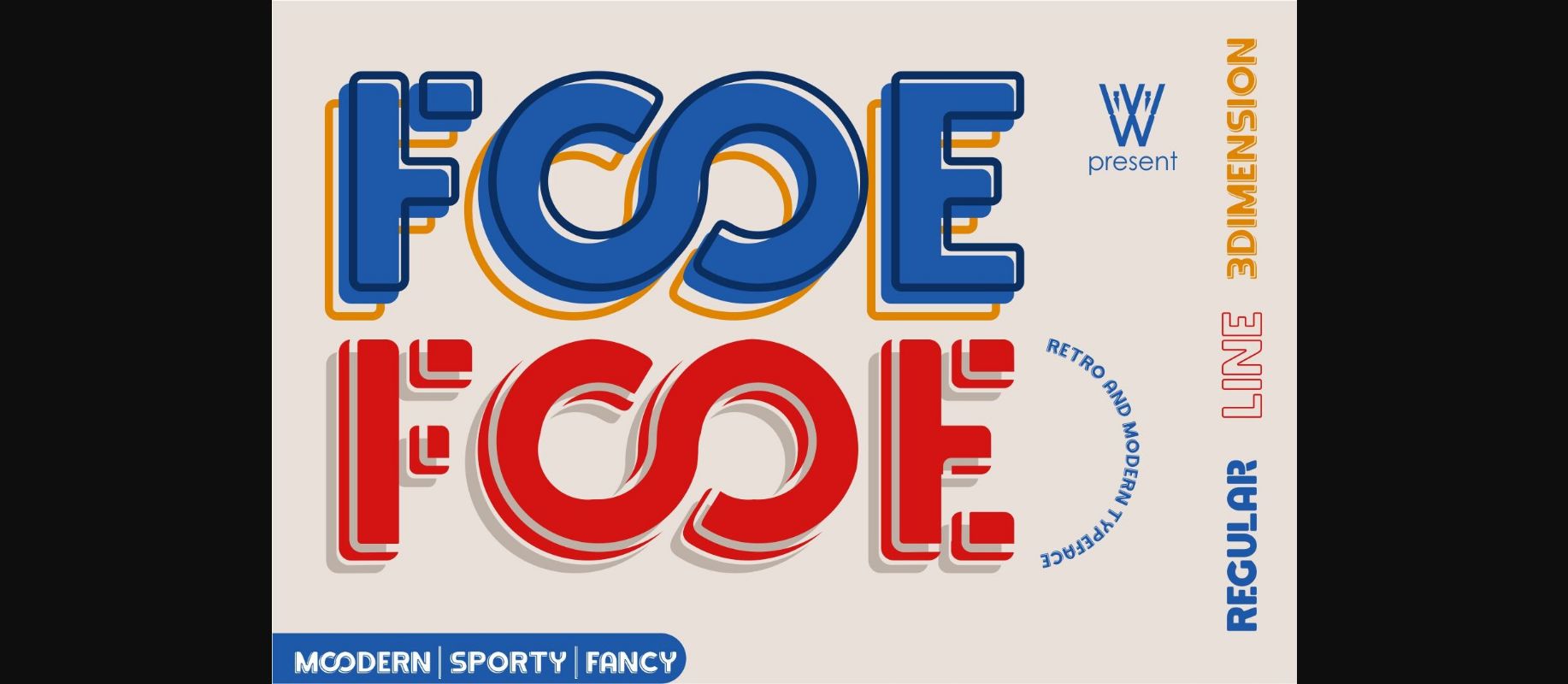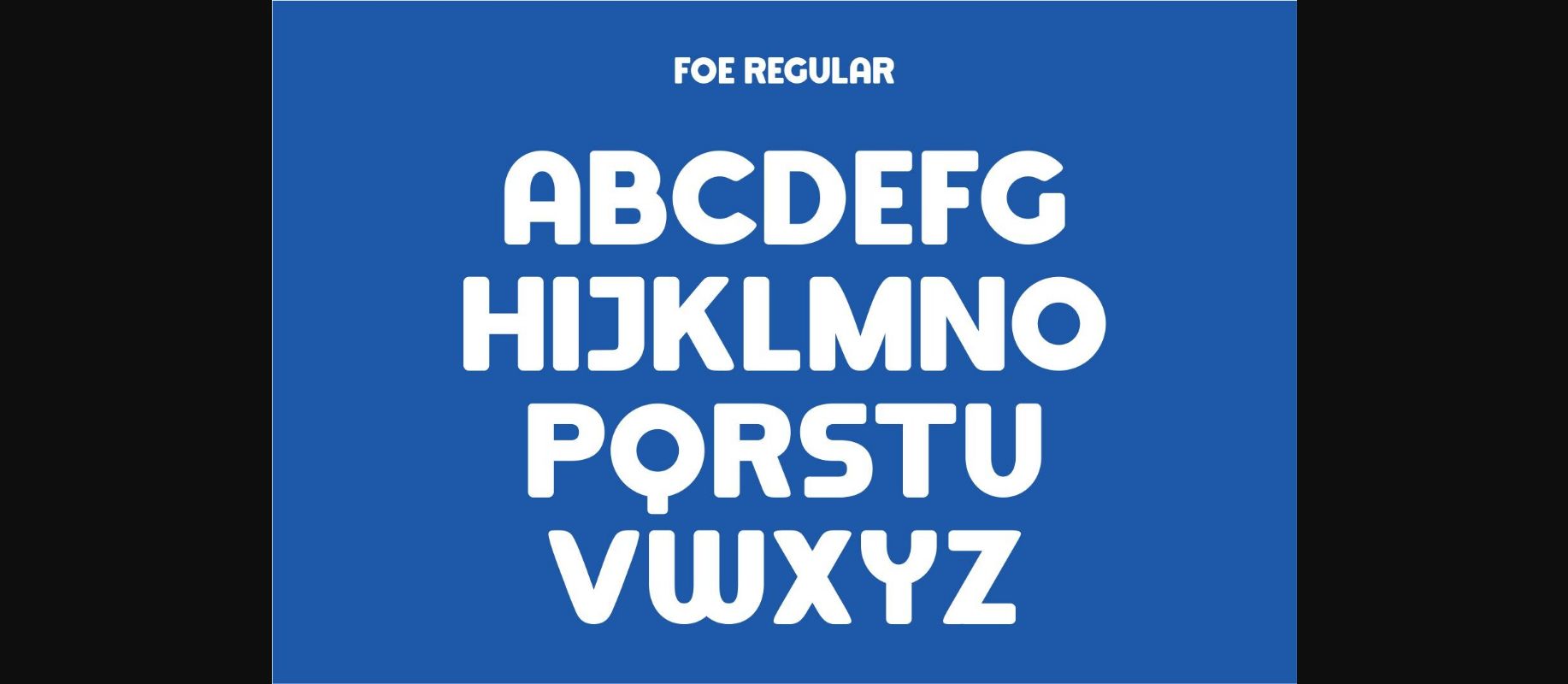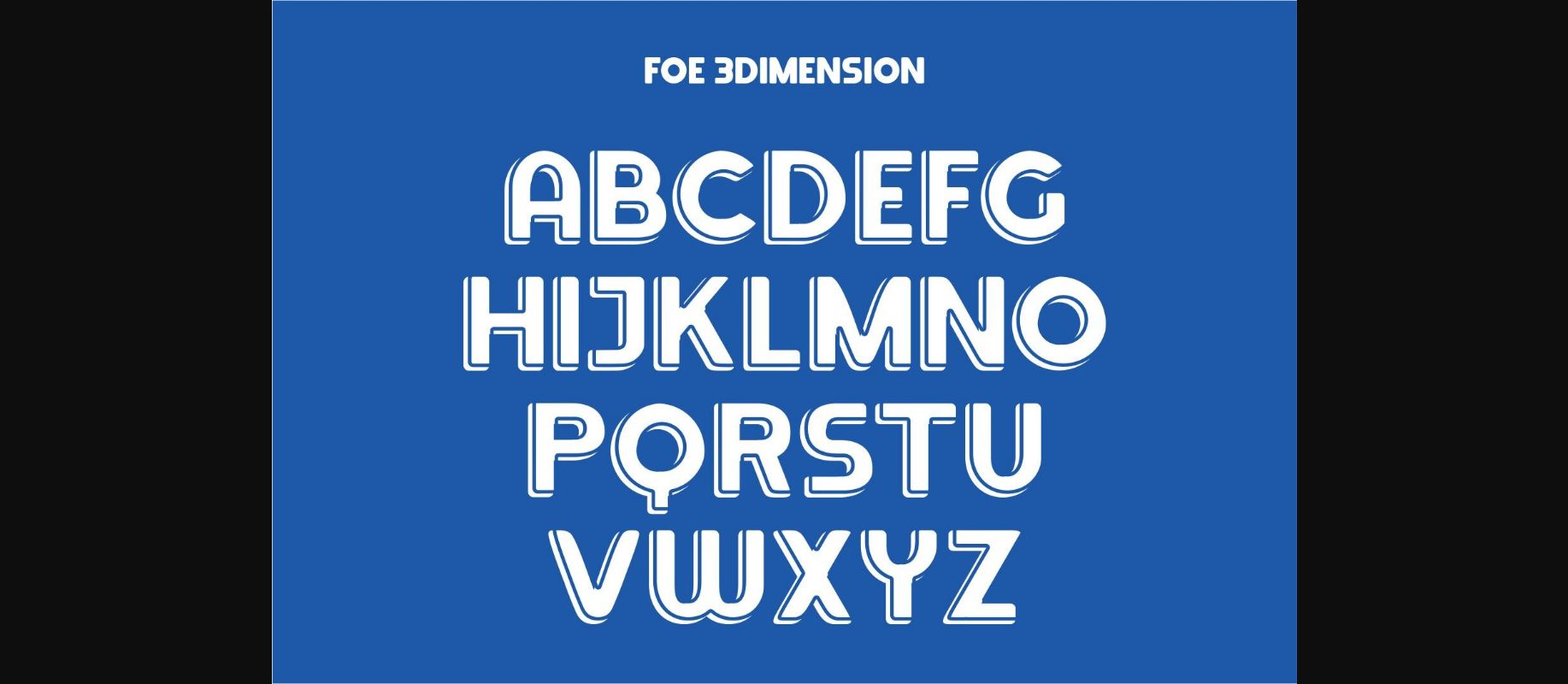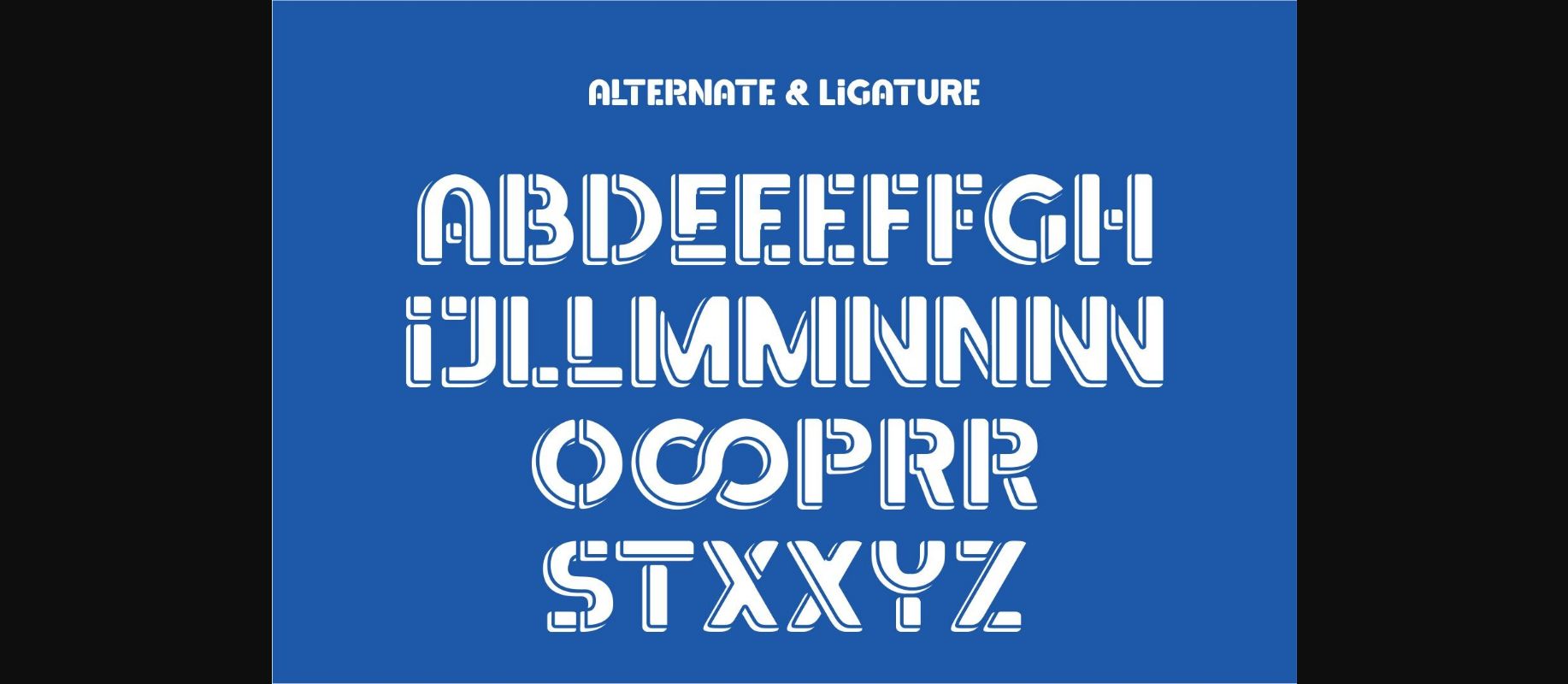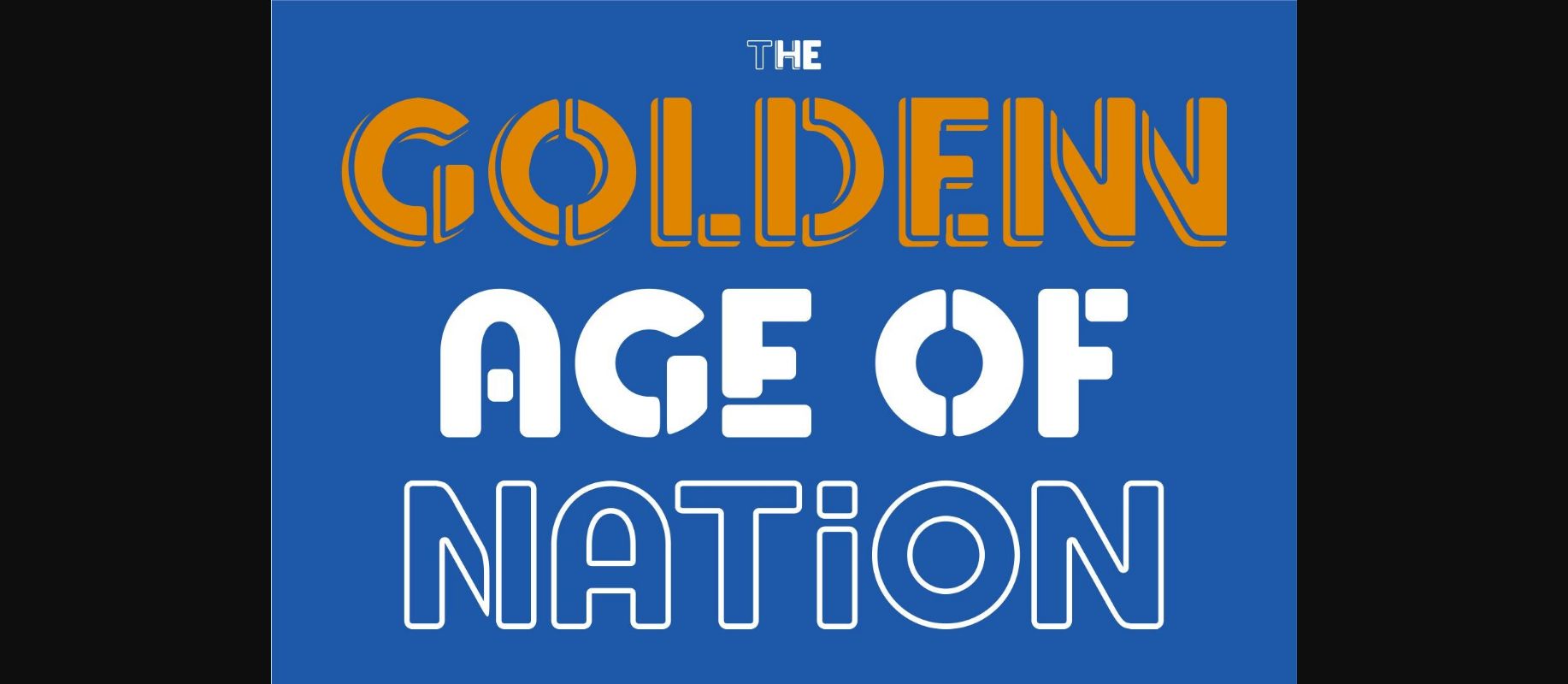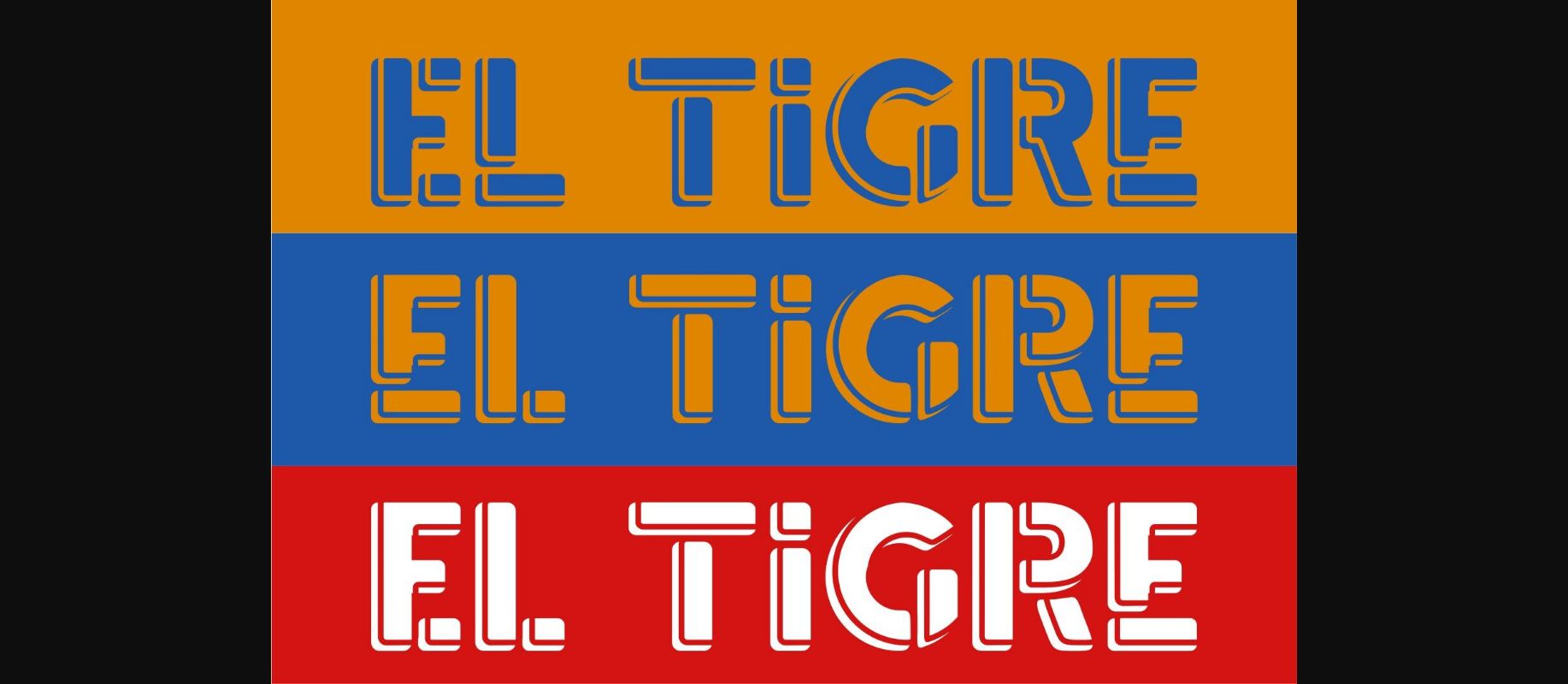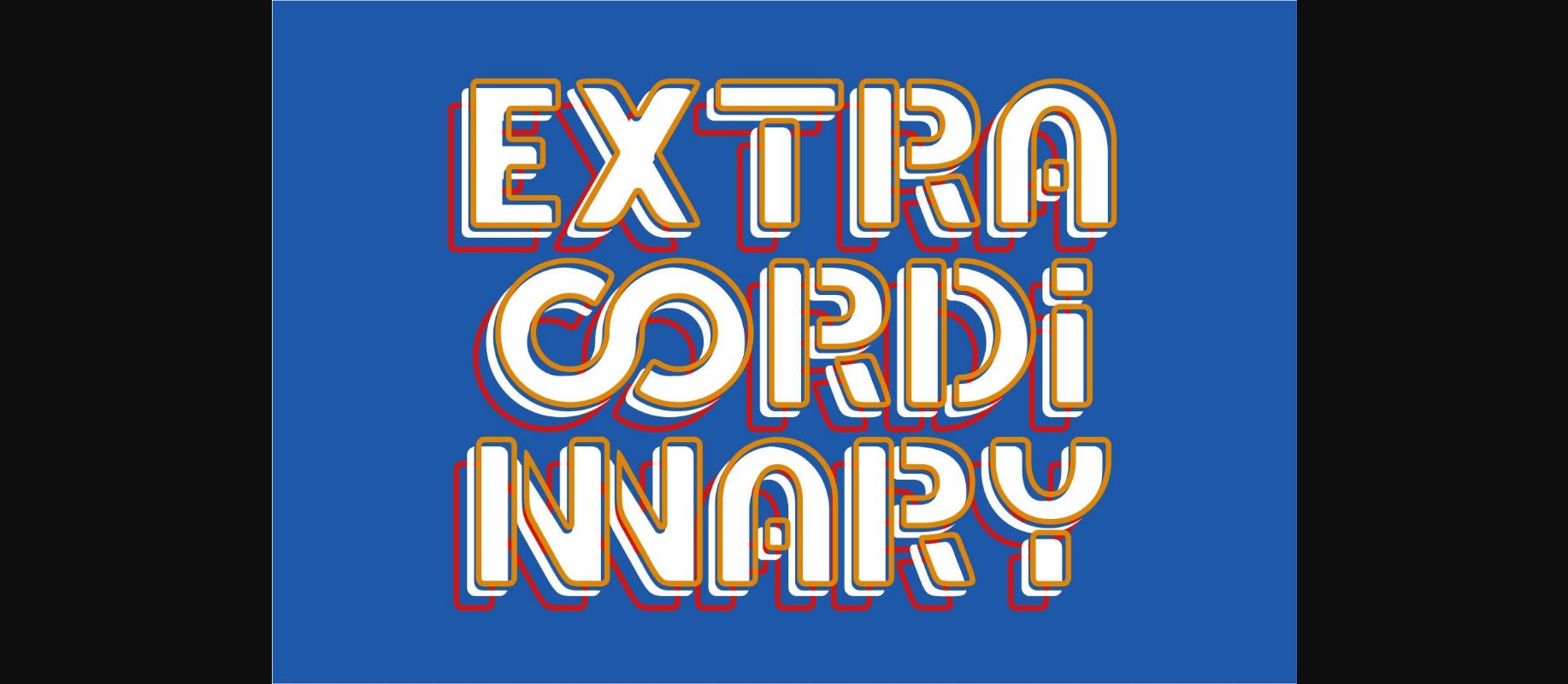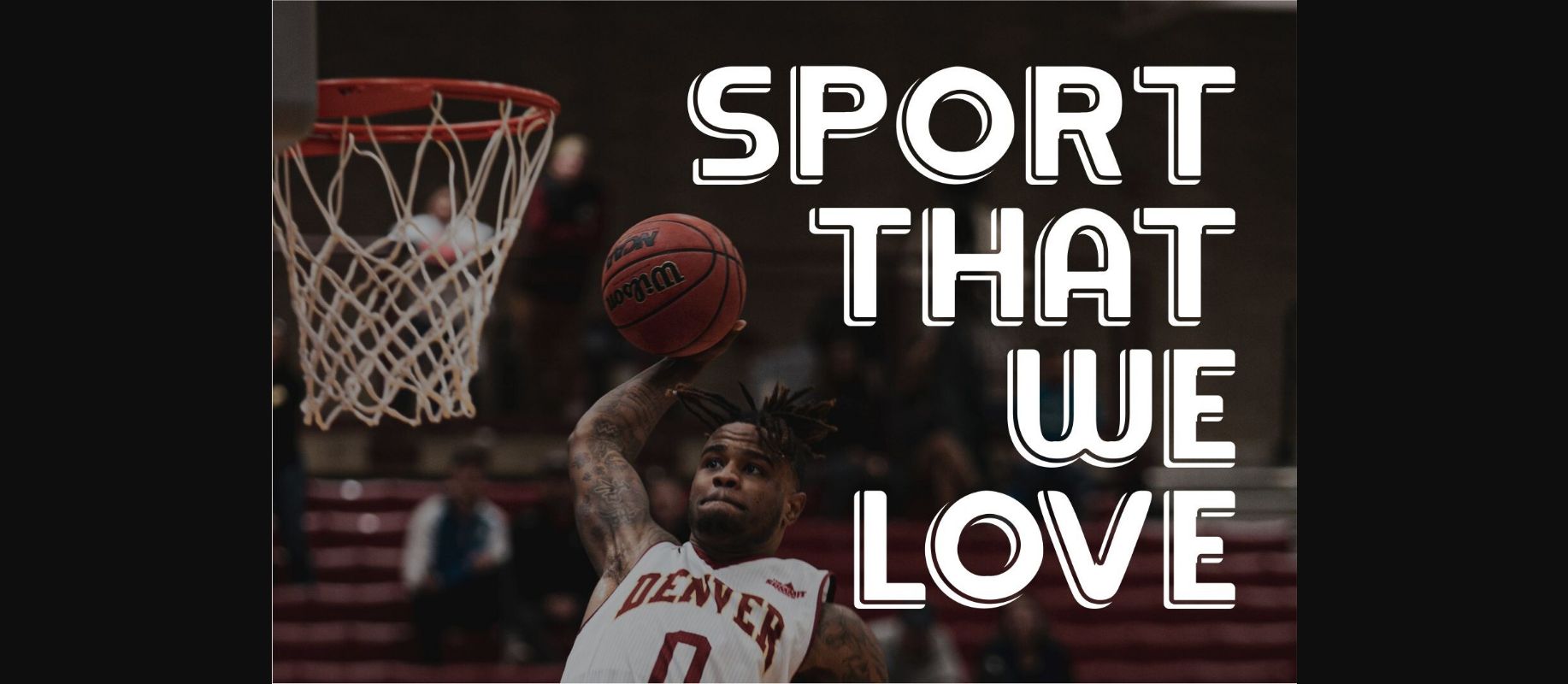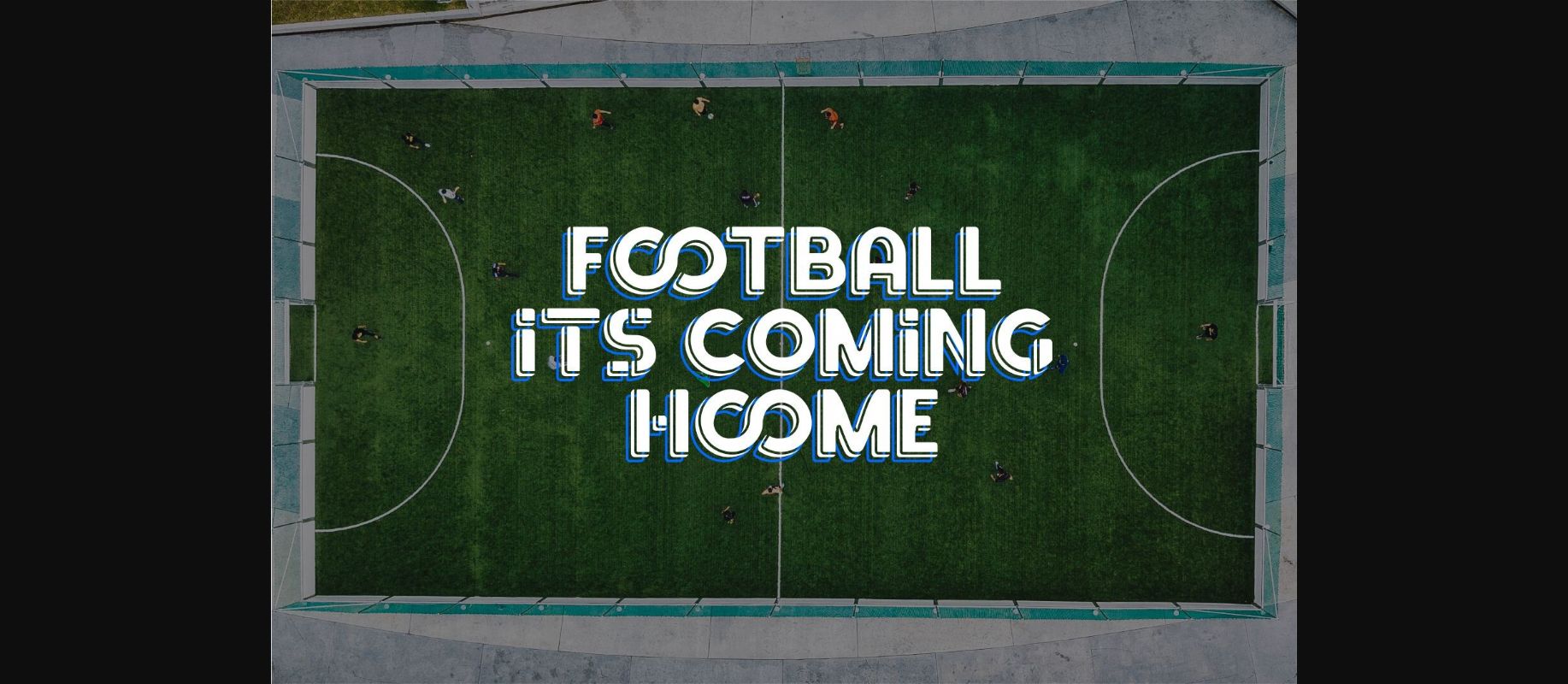
Fooe Fooe is a modern decorative typeface. This contemporary decorative typeface that embodies modern design elements, offering versatility through its three distinct styles: regular, line, and 3D dimension. Each style of the font contributes to a unique and visually engaging typographic experience. Add this font to your favorite creative ideas and see the results!